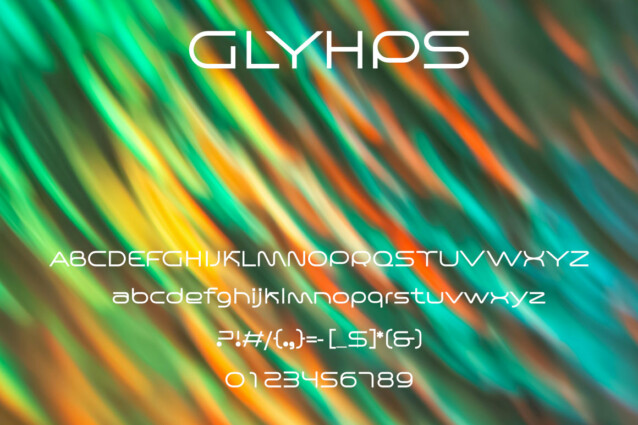
FF Mab Font
FF Mab Font creates futuristic hi-tech atmosphere and style. It is good looking as header and as text both. Use it in your projects in such areas as robots & androids, hi-tech, future, virtual reality, space, sport and many others. Good look at all design, grab it!